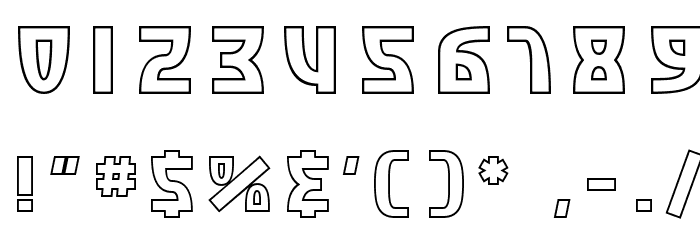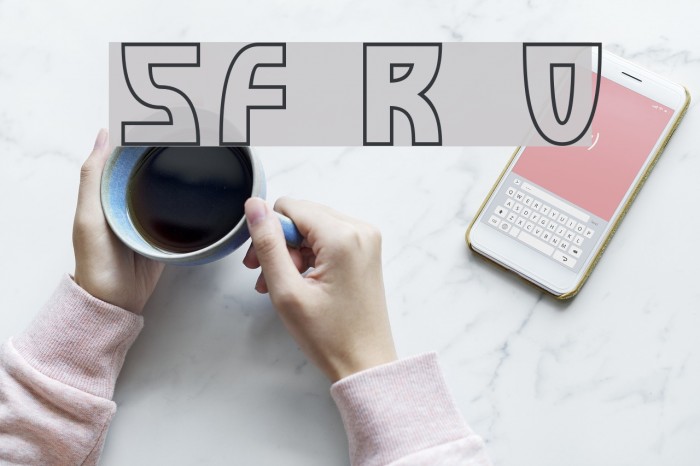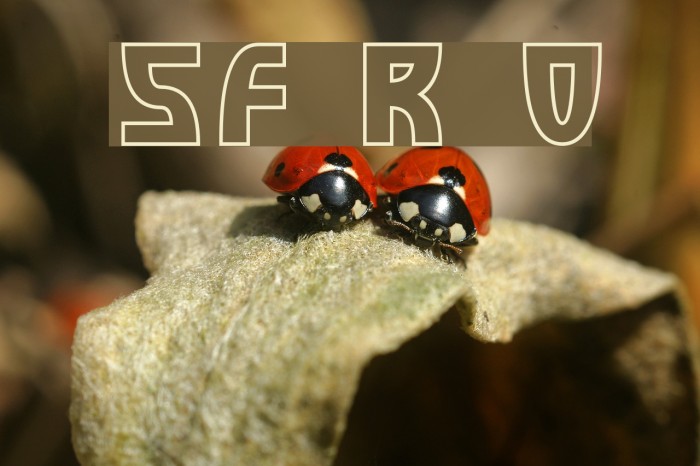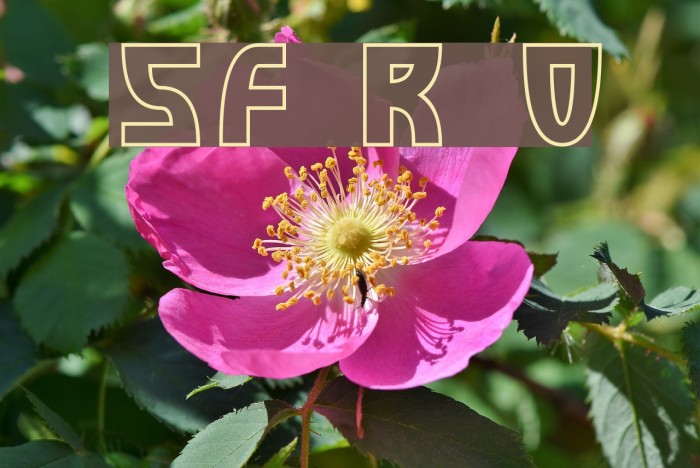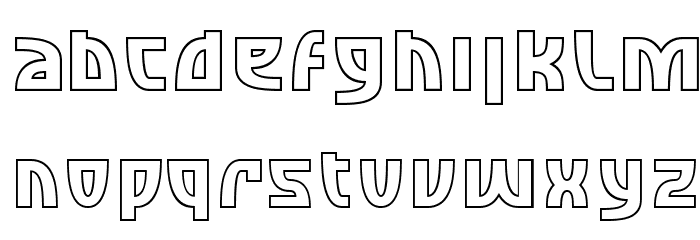
SF Retroesque Outline Font
SF Retroesque Outline Description
This font features a bold, geometric outline style that evokes a retro aesthetic. The characters are constructed with clean, angular lines, creating a sense of modernity while maintaining a nostalgic feel. Uppercase and lowercase letters are distinct yet cohesive, with a consistent stroke width throughout. The numerals and special characters follow the same design principles, ensuring uniformity across all glyphs. This font's outline nature gives it a unique, eye-catching appearance, making it ideal for designs that require a standout typographic element.
| Overall Style | Retro, Modern |
| Proposed Projects | Ideal for vintage-themed posters, retro branding, and eye-catching headlines. |